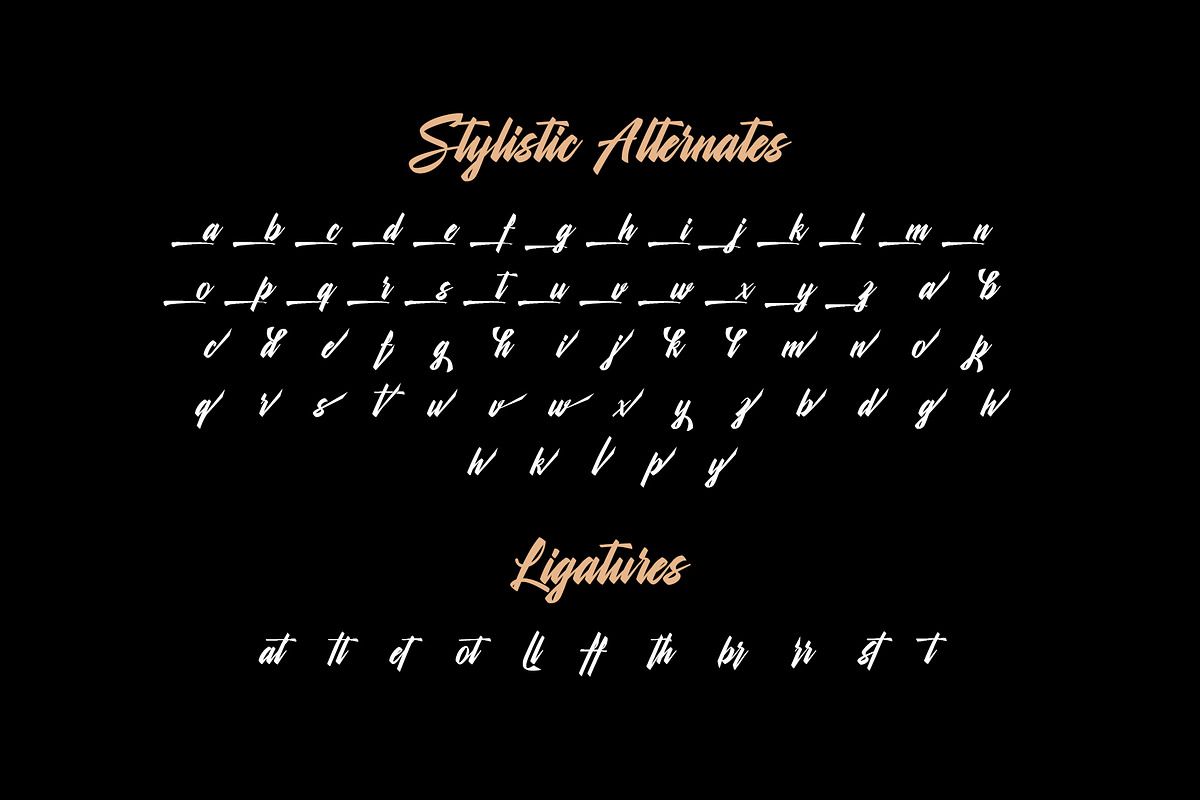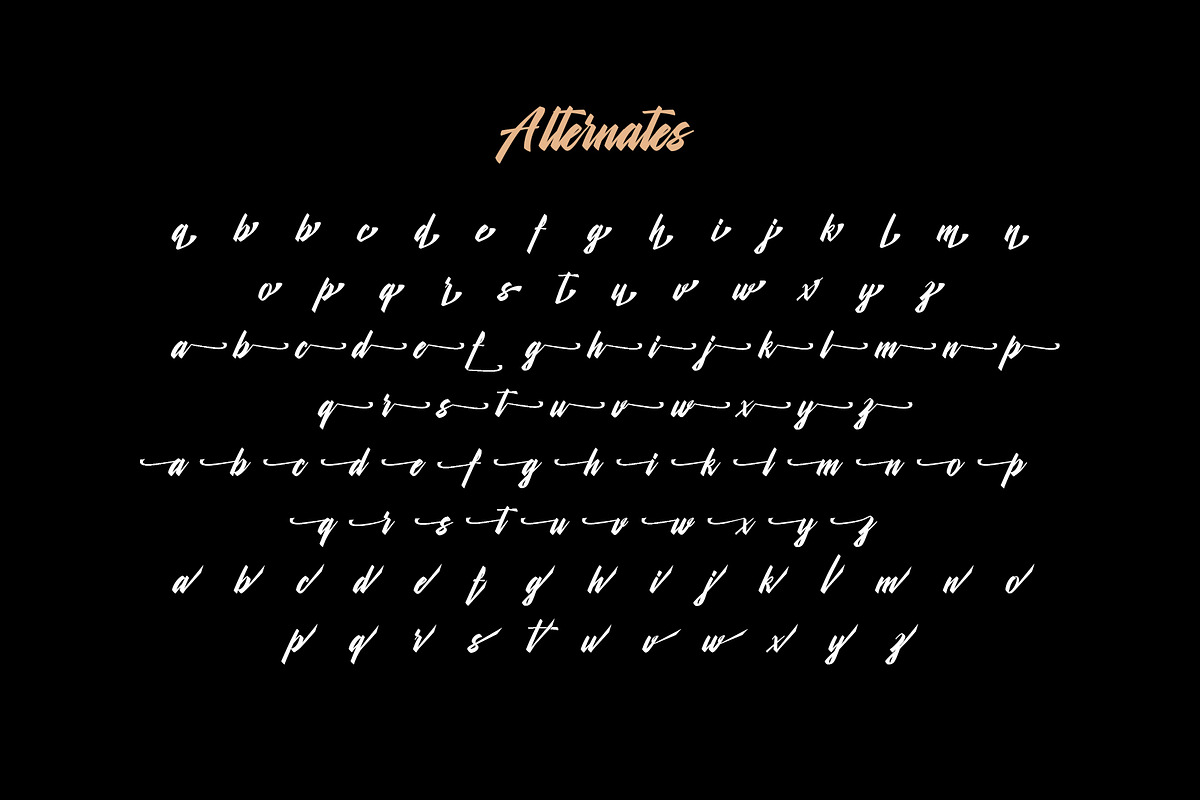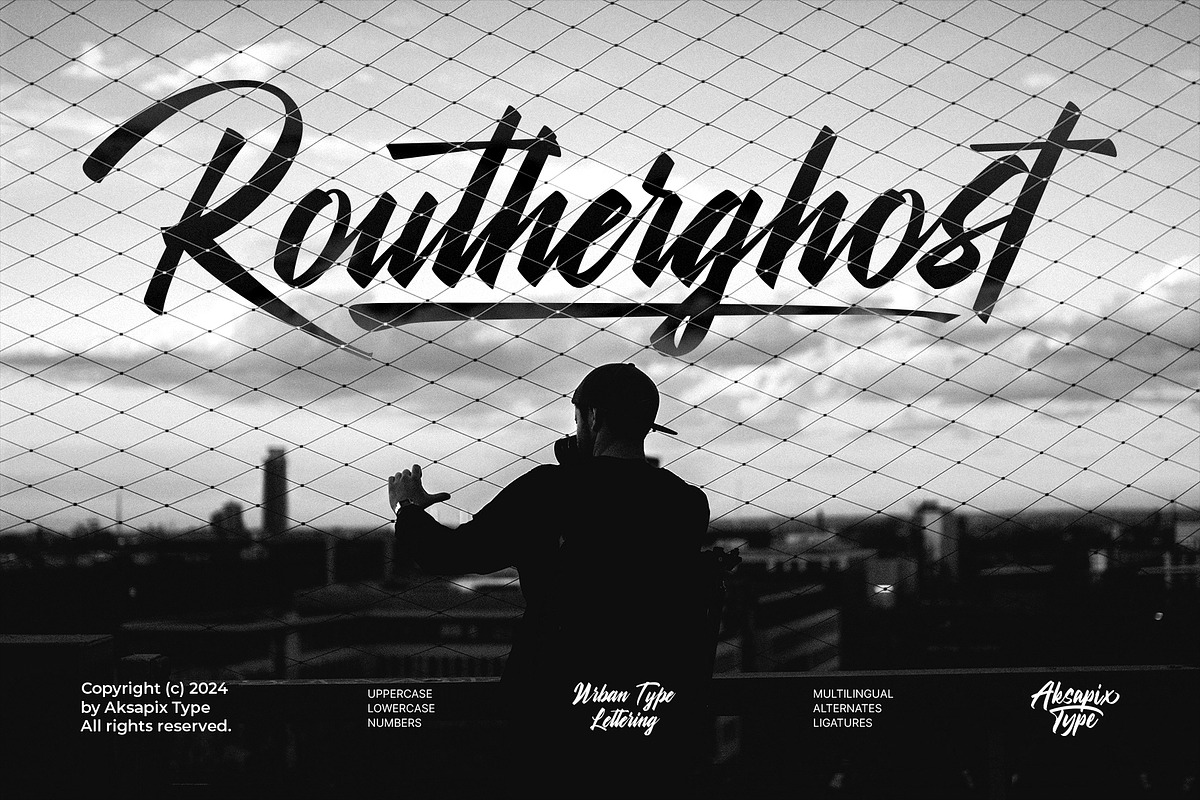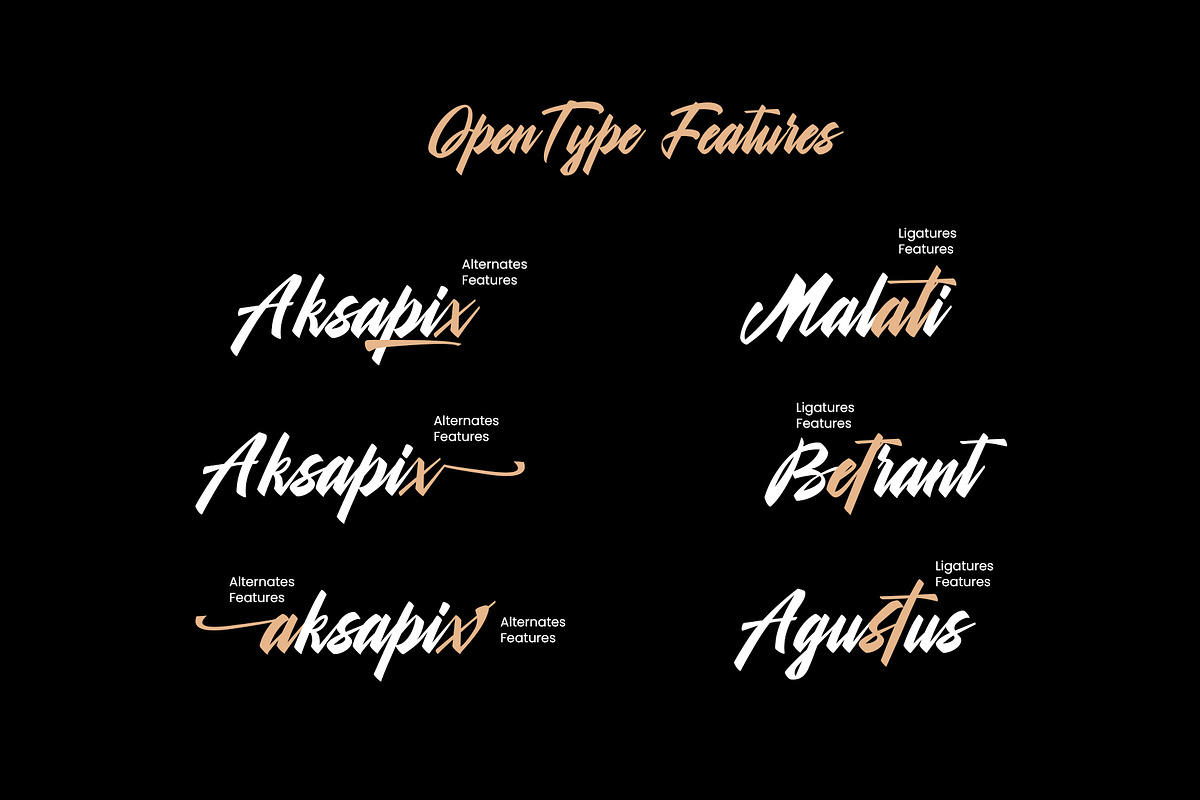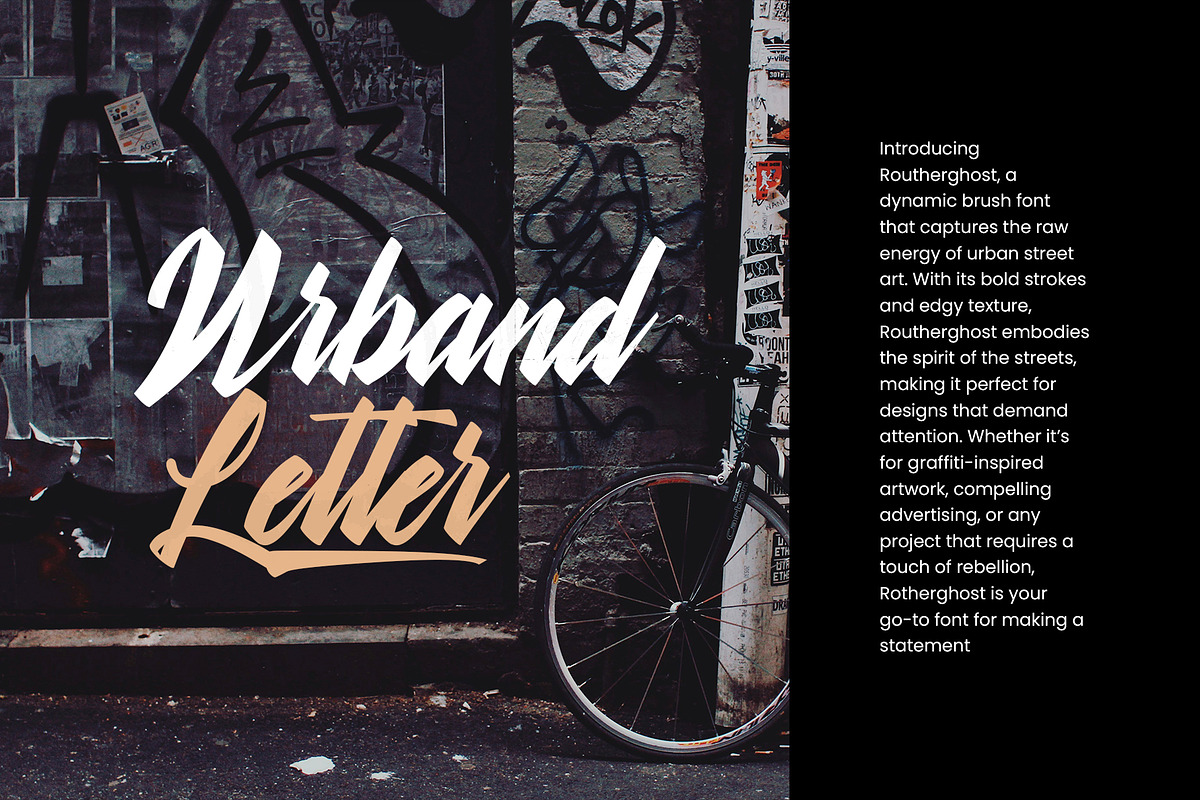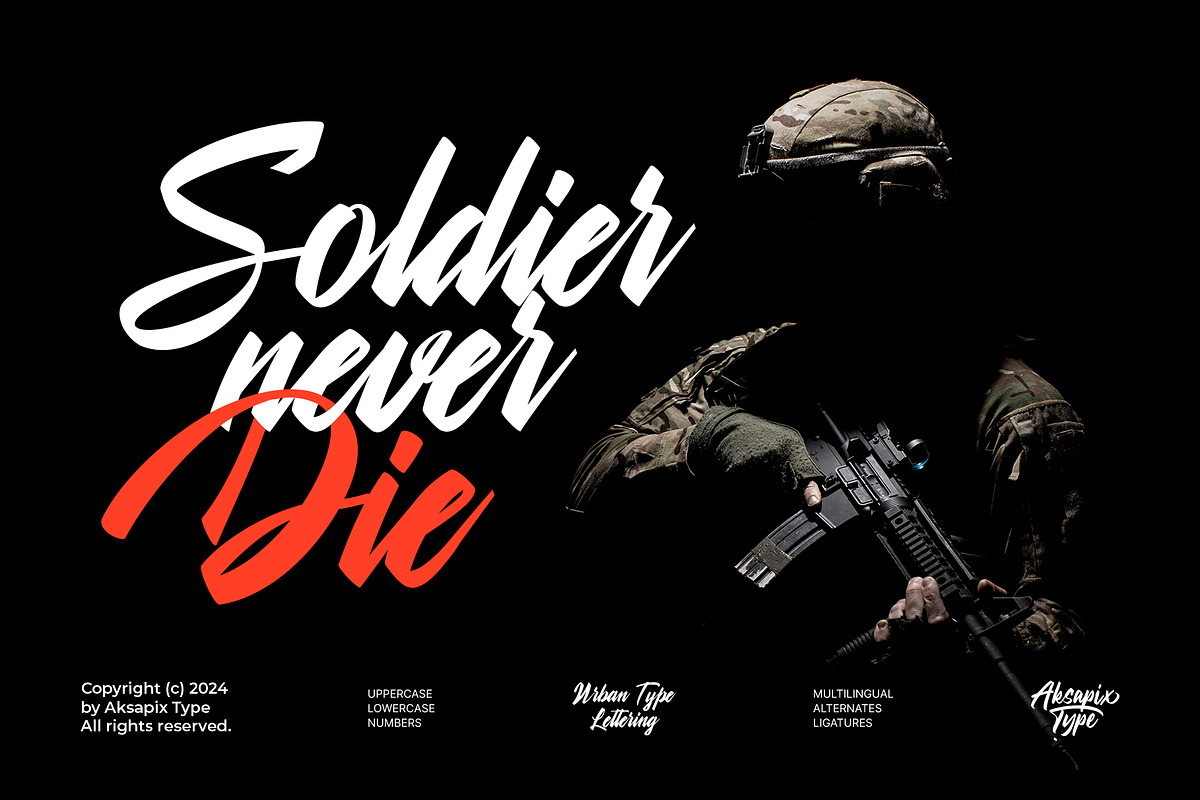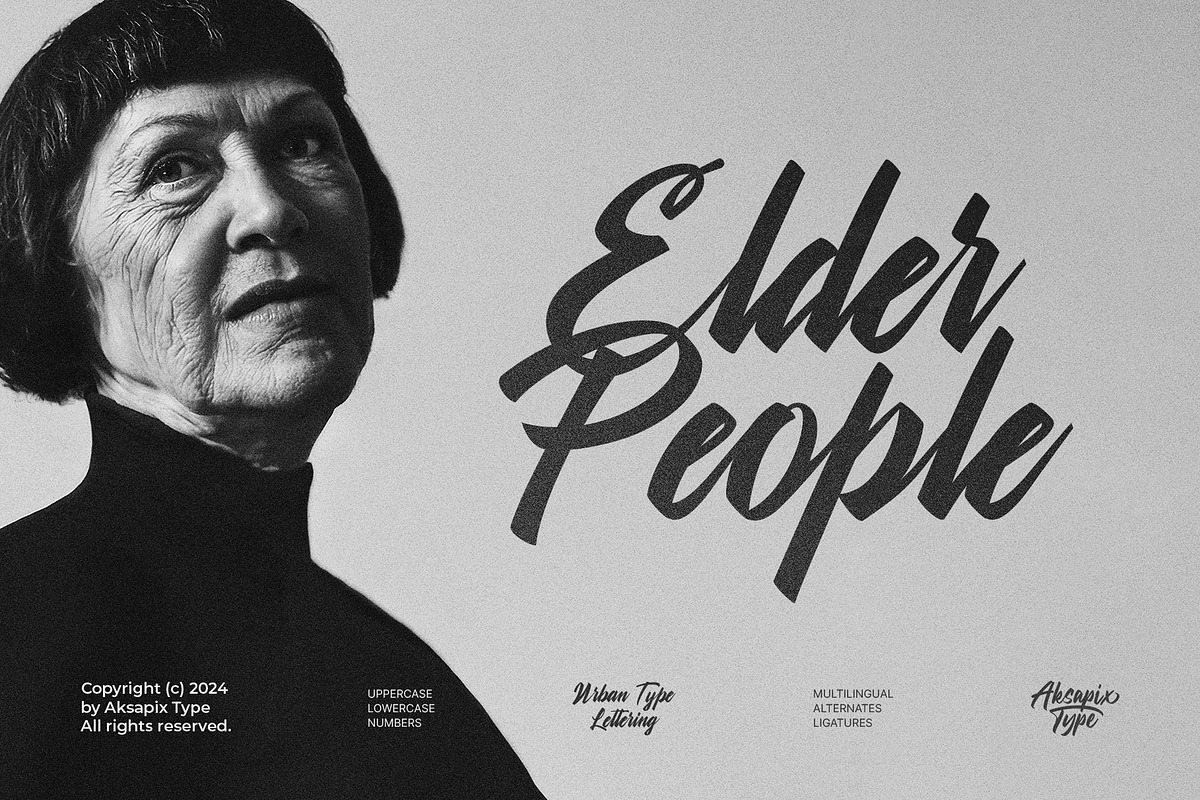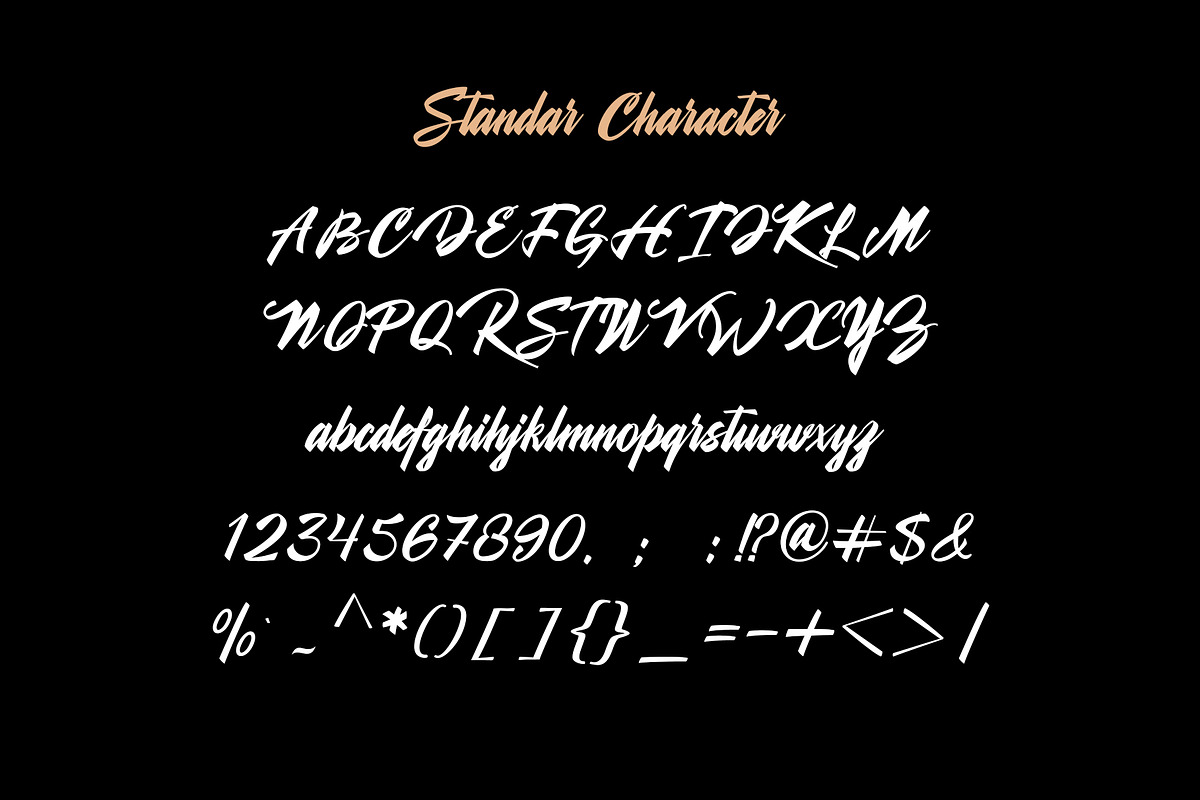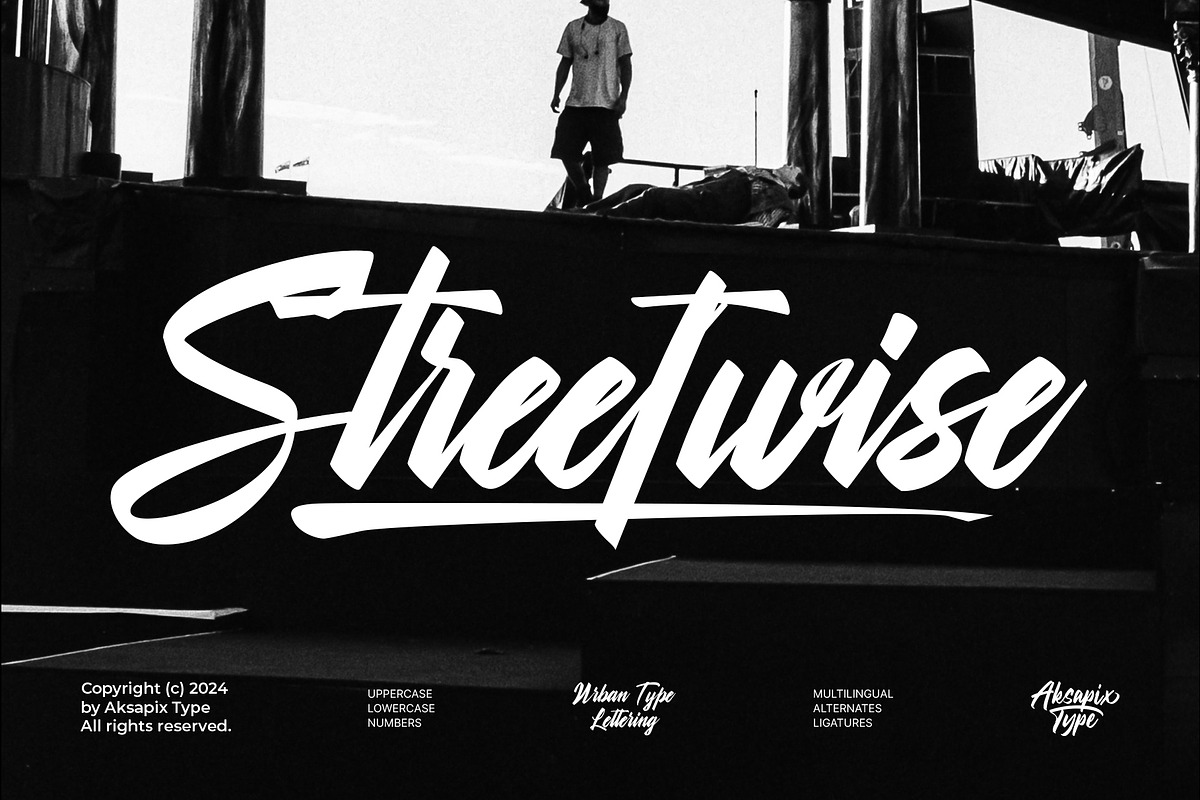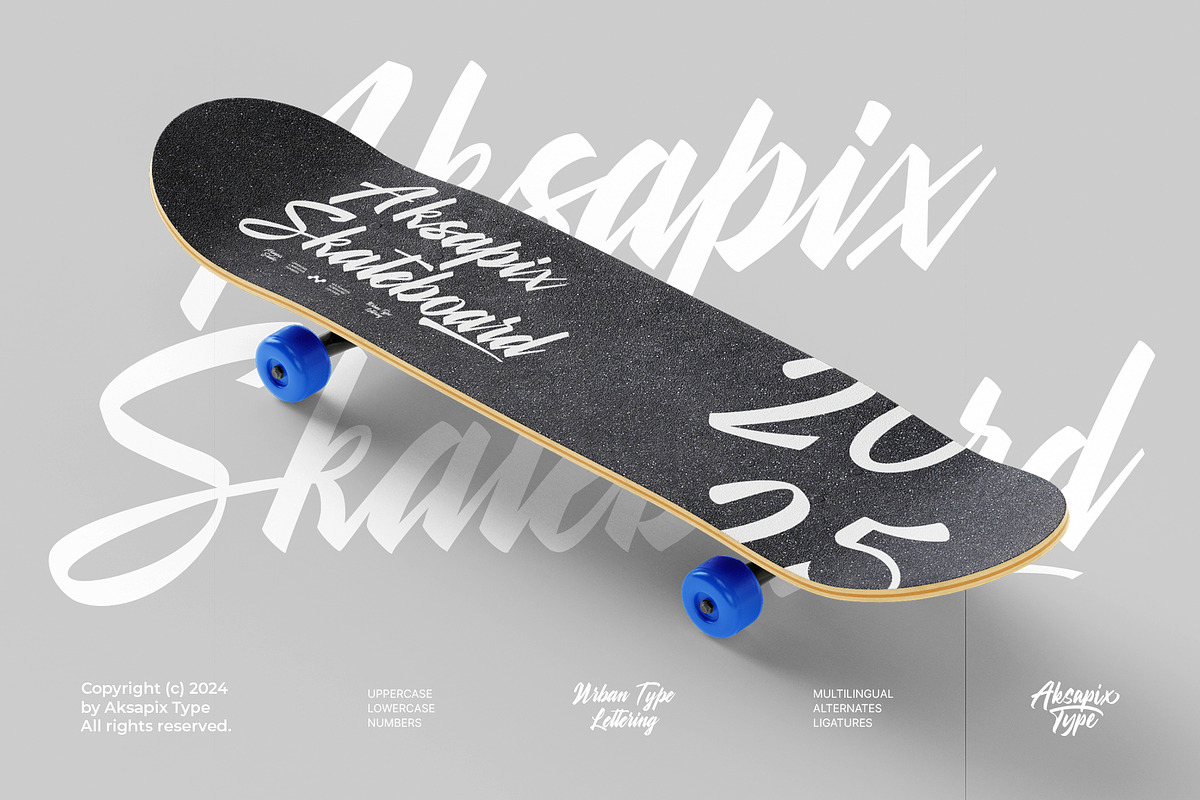
Routherghost - Urban Type Lettering
Introducing Routherghost, a dynamic brush font that captures the raw energy of urban street art. With its bold strokes and edgy texture, Routherghost embodies the spirit of the streets, making it perfect for designs that demand attention. Whether it’s for graffiti-inspired artwork, compelling advertising, or any project that requires a touch of rebellion, Rotherghost is your go-to font for making a statement, Routherghost is ideal for a wide range of design projects
Punctuation & Numbers
Multilingual Support: Ensures compatibility with different languages.
Stylistic Alternates: Offers additional stylistic options to customize your text.
Bold and Modern: Perfect for urban-themed designs.
Streetwear Brands
Graffiti Art
Urban Posters
Music Album Covers
Modern Logos
Enhance your urban-inspired designs with Routherghost - Urban Type Lettering. Whether you’re creating edgy streetwear graphics, vibrant graffiti art, or contemporary posters, Routherghost delivers a bold and impactful visual statement.